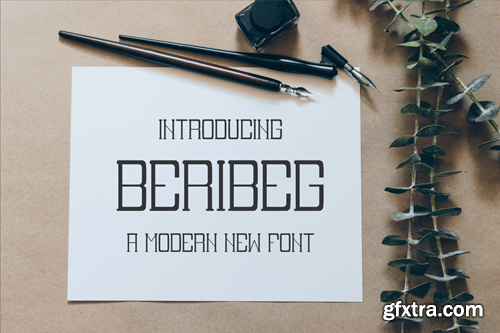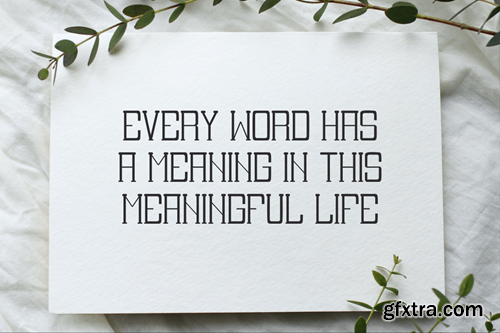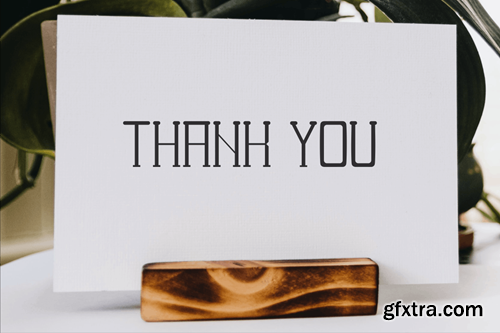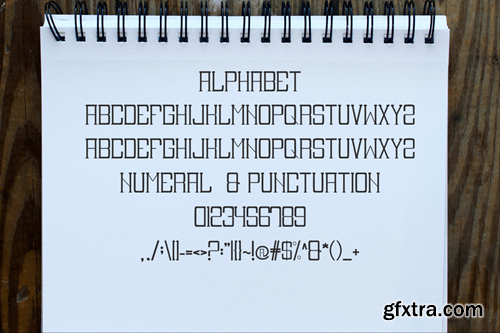
贝Ribeg - A Modern New Font D6EWN77
Beribeg - A Modern New Font
Introducing Beribeg Modern Serif Serif. Beribeg is a modern and simple font, best used as a display for headings, logos, branding, magazines, product packaging and invitations. Beribeg come with clean lines and smooth curves give any project an extra touch of class. What you get: Thank you.